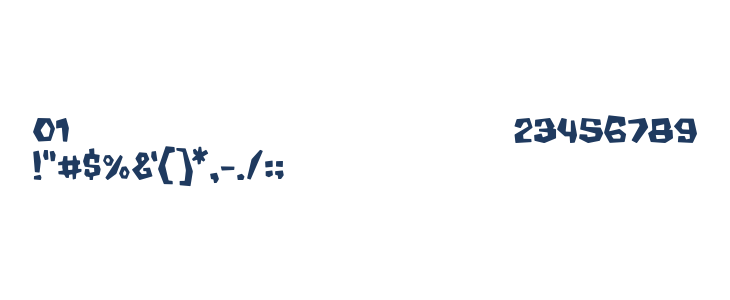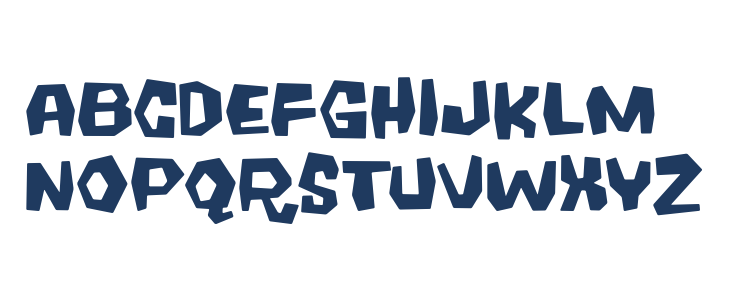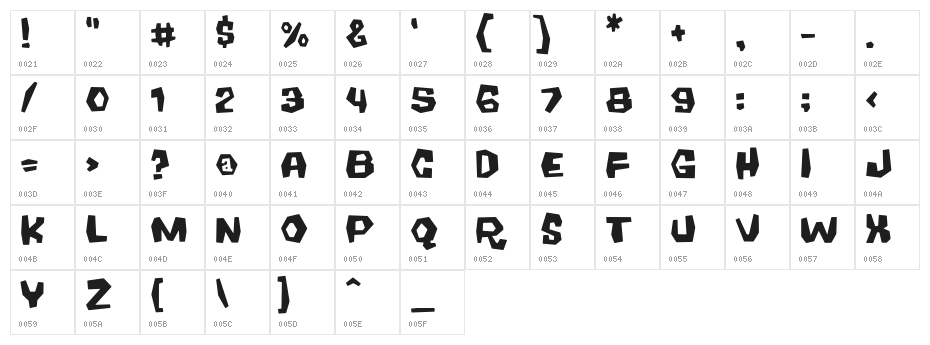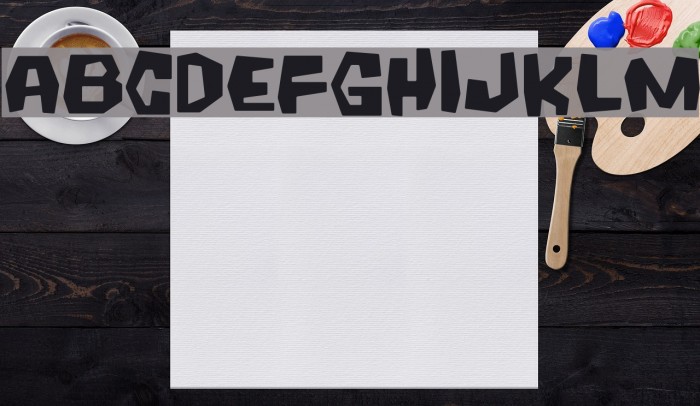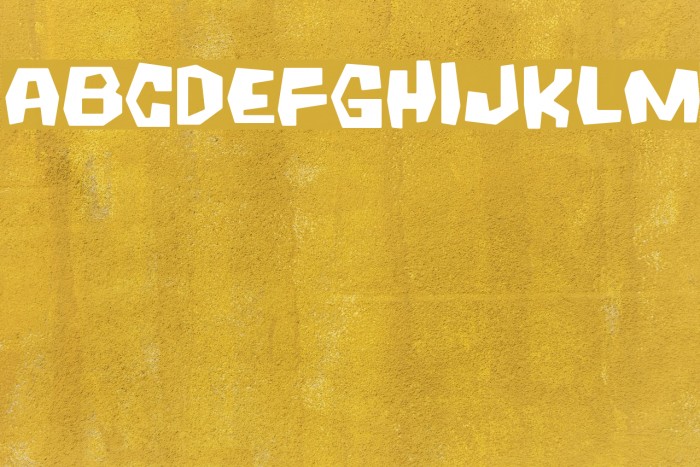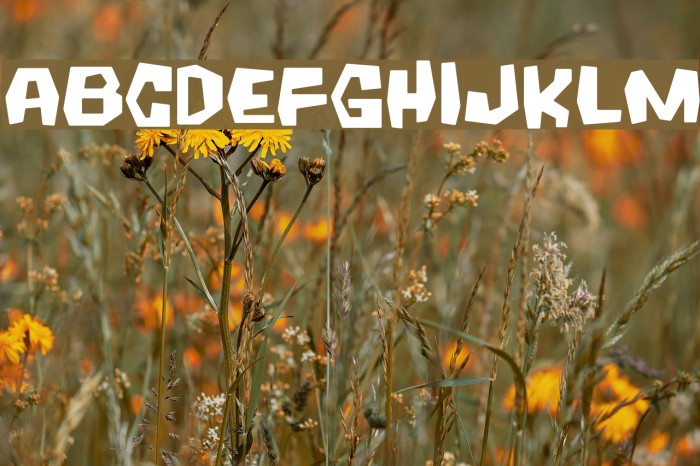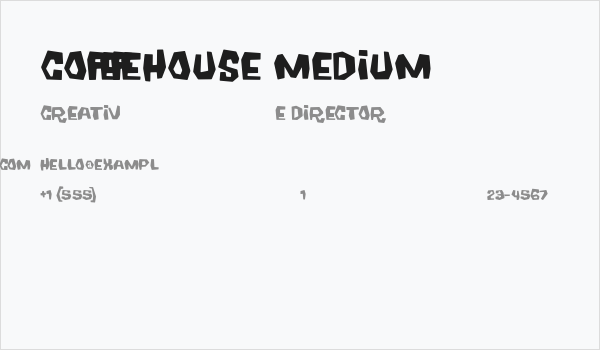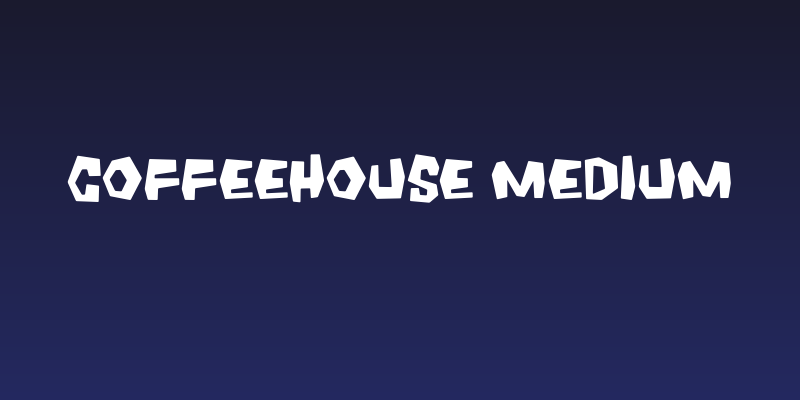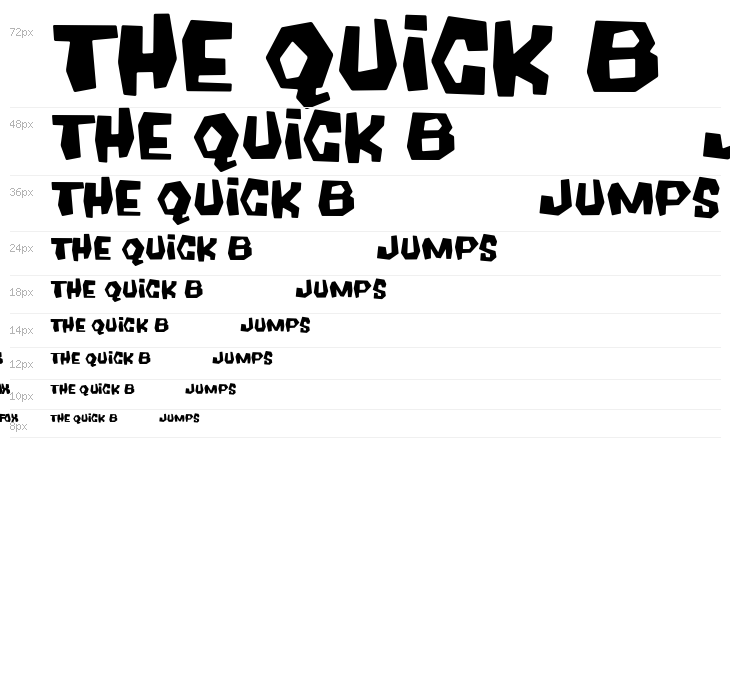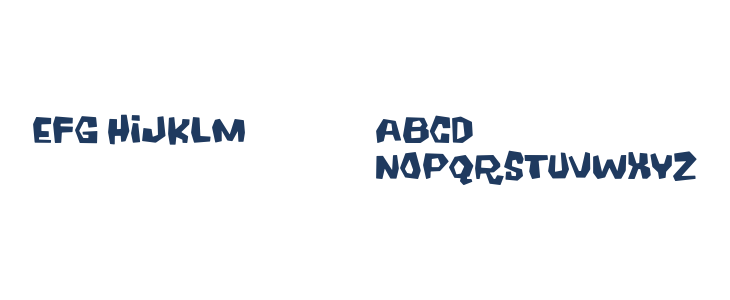
Coffeehouse Medium Font
Coffeehouse Medium Description
This font exhibits a bold and playful style, characterized by its irregular, chunky letterforms that give it a hand-crafted appearance. The uppercase letters are particularly striking, with each character featuring unique angles and curves that add to its quirky charm. The lowercase letters maintain this playful aesthetic, ensuring consistency across the typeface. Numbers and special characters are equally bold, making them stand out in any design. The overall look is reminiscent of a casual, artistic vibe, perfect for projects that require a touch of creativity and fun.
| Overall Style | Playful, Artistic |
| Proposed Projects | Ideal for creative projects such as cafe branding, children's book covers, playful posters, and artistic event invitations. |